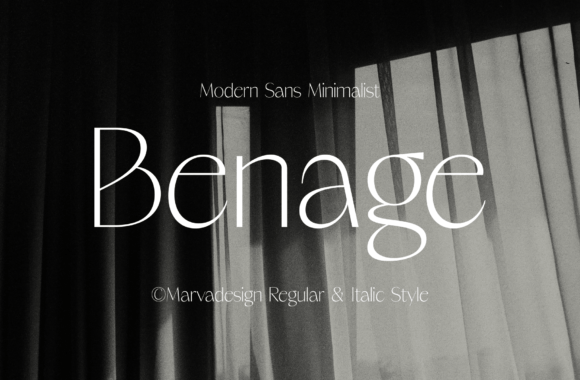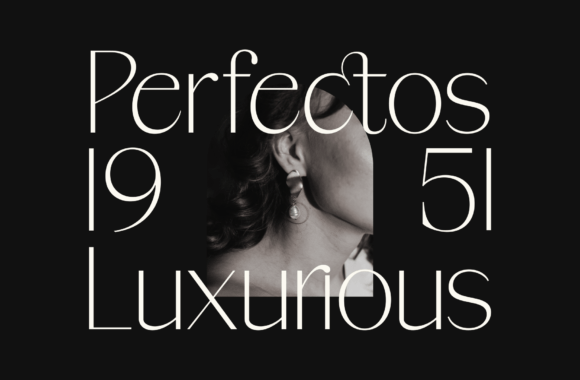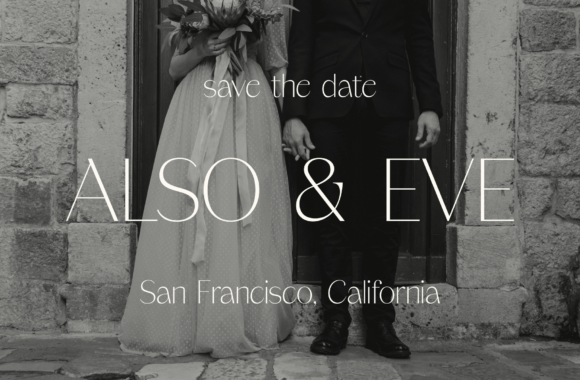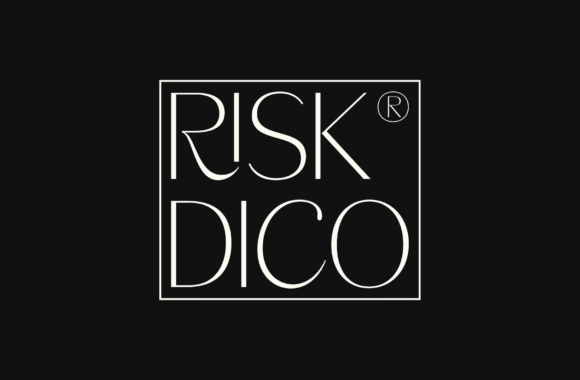
Benage Font
Introducing **Benage** font an Elegant Sans Serif typeface designed with a minimalist design. This font has a thin and clean character, making it an excellent choice for luxury products. Its smooth lines and balanced proportions give it an elegant and modern feel. Suitable for Luxury Product Branding, Elegant Graphic Design, and Print and Digital Media.